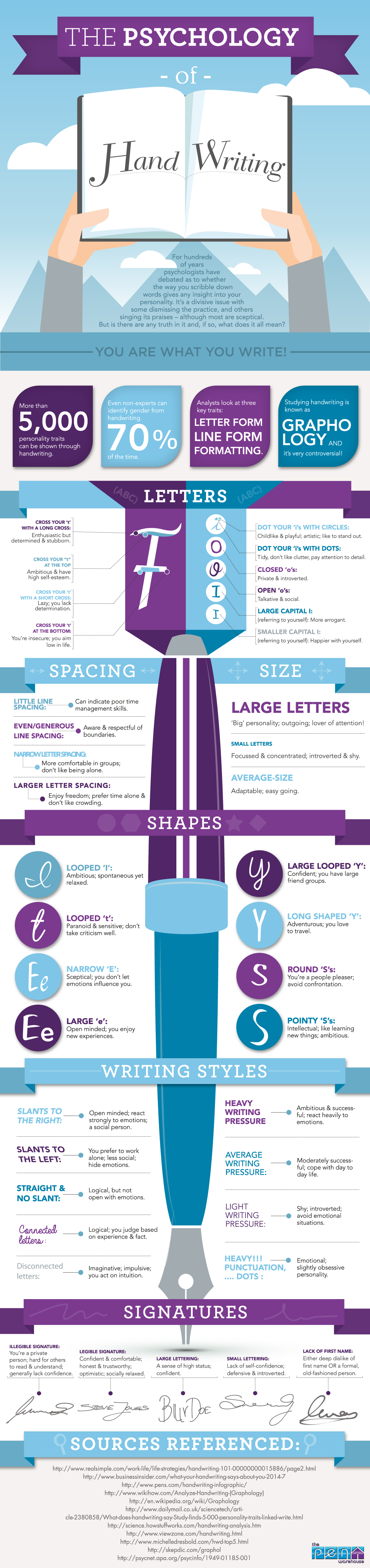
Page of a letter from my ma.
For decades I’ve ranked typing as the most useful class I took back in high school. I hated showing up for this particular summer school elective, my story goes, but by the end of the class I could type 40 words a minute. It was like magic. And now I can type 100.
Well, lately I’ve begun to regret my supreme keyboarding skills.
It took a good while to sink in. But just the other day, during my morning hike with Jack, my dog, the true ramifications hit me. Having somehow reached Retirement Age, I’d been ruminating on the written materials I’ve produced over the past 40 or 50 years, both personal and professional. And it occurred to me that—for the past 30 of those years, anyway—nearly all endure as but flimsy digital words. Many thousands of email messages, hundreds of letters in Microsoft Word, text files cram-packed with thoughts and notes and reflections. Intangible, ethereal. All stored, like thoughts, in memory.
A page from my dad’s Army diary.
Even the drafts and revisions of books I’ve authored abide only in digital form.
These things I’ve written exist on various hard drives, in cloud storage—even a few old Zip drives. Remember floppies? SyQuest disks? I’ve got a few of those squirreled away in boxes somewhere.
Projecting time forward a generation or two, I realized that the chances any of my stuff will stick around long enough to find its way into a historical museum somewhere (not that it should) are paper thin. Because none of it’s on paper. And the only way to get it there is to find a way to translate all those 1s and 0s into computer text and print it out. In any old font you want.
Boooring.
But project time backward a couple generations and, and you’ll find journals and notebooks and postcards and stationery filled with handwritten words. Whether cursive or printing, neat or sloppy, slanted this way or that—each style reflects the unique hand of its author. And none of it was put down at 100 words a minute.
Card from my grandparents to my great-grandparents.
I have handwritten letters from my mother, diaries written by my father, postcards from my grandparents. I recognize their familiar cursive styles on envelopes, on the backs of old photos—photos developed in a darkroom, I mean. There’s probably even an old handwritten recipe collection somewhere.
Yet where does my penmanship appear? On a few old love letters and poems perhaps, in a couple or three decades-old notebooks.
On that hike the other day I decided to pick up a pen more often, to write lists and notes, cards and letters, maybe even fill a notebook. My hand might not be practiced, or cursive, or neat. It might take me a while to get over the hand-cramp. But I expect it’ll mean more to the future reader than a bunch of digital words set in, say, Comic Sans.
» See? “[A]ll that will be remembered of them is what they typed on a piece of paper from a computer.”
» Turns out this gang of fourth graders are diggin’ cursive these days.
» Some might even (like me!) become experts on deciphering old penmanship.
» The uniqueness of individual handwriting makes the news again (Roy Moore).
» And, hey, with Valentine’s Day coming, maybe it’s time to write a love letter—by hand.
My cursive handwriting test.
A confession: my cursive handwriting sucks. I write by hand so rarely these days, and when I do, it tends to come out as a sort of stylized printing I forced on myself thirty or forty years ago. So I just tried writing a few short cursive sentences on an index card to see what it looks like.
Yeah, it sucks. In fact, I couldn’t even remember how to write a capital “T.”
Alas, I’m not alone. What got me testing out my cursive today was a recent news item about how Cambridge University educators are considering dropping their handwritten exam requirement—after more than 800 years. The problem being that the faculty is having trouble reading students’ handwriting.
18th-century penmanship from Kentucky County, Virginia.
“There has definitely been a downward trend,” says history lecturer Sarah Pearsall. “It is difficult for both the students and the examiners, as it is harder and harder to read these scripts.”
Bummer.
A Need for Speed
But I’ve long predicted this. Our smart digital devices are feeding our need for speed when it comes to all forms of communication. I mean, let’s face it: it takes a lot longer to write a thank-you note by hand than to tap out a text with your thumbs. Sure, taking the time to learn cursive might be good for your brain, your manual dexterity, and your memory, but first-world humans just prefer living in the fast lane these days, apparently.
The handwriting of Meriwether Lewis.
This got me wondering (not for the first time) how things might change if the grid goes down. Say a computer virus, an asteroid, a natural (or nuclear) disaster, solar flares, or Siri Personified takes us all offline in an instant. How will we communicate over long distances in such a post-apocalyptic scenario? Well, I reckon we’ll have to go back to scribbling out notes using charcoal on birch bark and handing them to a courier, who will deliver them to our remote recipient in person. And I can imagine the dismay on the face of our correspondent who can’t read a word we’ve written.
“Return to Sender. Illegible.”
Learn by Doing
Perhaps at the very least it’s worth practicing—if not your cursive—your hand-printing every now and then. Maybe by jotting down a grocery list, composing a thank-you note by hand, or authoring an actual letter, inserting it into an envelope, and dropping it in the U.S. Mail. I daresay pen makers and the U.S. Postal Service will appreciate it, as will your recipients. So long as they can read your writing.
The irony is that, during the decades of the decline of my penmanship, I’ve taught myself to decipher various styles of cursive handwriting from centuries gone by. And you can bet there’ll be someone with similar skills to help us out centuries from now:
“Siri, read me that old cursive letter.”
Miscellanea
» Cursive makes you smarter: a wonderful essay about all this stuff.
» Another articulate argument for not scrapping handwriting instruction.
» To heck with handwriting recognition: recognizing handwriting is a moving experience.
» Geneva, Ohio, honors the master penman who created Spencerian Script.
» Yes, truly exercising the brain sometimes takes a little time.
» On the 200th anniversary of Jane Austen’s death, a graphologist reveals a few secrets.
» Finally, Darick “DDS” Spears has released a new hip hop album called “Penmanship.”
Tags: bad penmanship, cursive, cursive hanwriting, digital devices, grid goes down, handwriting, handwriting in schools, handwritten letters, illegible, letter-writing, long-distance communication, need for speed, old handwriting, penmanship, poor penmanship, post-apocalyptic, practice, teaching cursive Posted in 21st Century, Communication, Cursive, Education, Graphology, Historical Figures, History, Literacy, Longhand, News, Old Letters, Penmanship, Ruminations, Specimens | 2 Comments »
Sunday, November 23rd, 2014
How they did it in the old days.
As the year winds down, and the photoperiod shortens here on the 44th parallel, I find my free days busy with autumn chores—e.g., earlier today I hauled away two pickup loads of maple branches fallen in an early wet snow—and my free evenings at my desk, by the fire, wrapping up loose ends.
The loose ends I’m wrapping up this evening: a number of handwriting-related news articles I’ve collected over the past few weeks. So rather than attempt an inspiring essay, I figured I’d simply share.
First I find a piece in the St. George and Sutherland Shire Leader, of New South Wales, Australia, about a program in which occupational therapists help HSC (Higher School Certificate—basically, high school) students learn how best to hold a pen. Seems perfect penmanship translates into better HSC test scores. One such therapist is Jackie Peile.
“[Peile] said students who completed the course had seen notable improvements in legibility, speed, readability and endurance [and] a 40 percent decrease in pain.”
Ms. Peile attributes students’ bad handwriting form on the overuse of iPads. Meantime, school officials in New South Wales are thinking of doing away with written exams altogether “as students can no longer tolerate long writing sessions after years of using a computer for school work.” Oh, dear.
While we’re in NSW, it seems the daughter of former premier Neville Wran is charged with a drug-related murder. 9NEWS reports that twenty-six-year old Heather Wran and two others stand accused of stabbing a fellow to death, but the investigation could take a while. Authorities were estimating a three-month wait on forensic reports—and handwriting analysis. Perhaps someone didn’t know how to hold a pen.
Also from Australia comes this rumination by writer Mel Campbell on the history of handwriting in schools Down Under, including the awarding of “pen licences” and something called “Victorian Essential Learning Standards (VELS).” For handwriting, VELS specify that…
…by year three students should: ‘Write using joined letters that are clearly formed and consistent in size.’ By the time they reach secondary school, they should possess ‘a personal handwriting style that is legible, fluent and automatic and supports writing for extended periods.’
Kid clamps down on pencil.
It’s worth a read. In fact, so is an opinion piece Campbell mentions—Teaching the write stuff: the forgotten art of penmanship, by retired teacher Marnee Wills, in The Age (Melbourne). Wills cites studies that show writing by hand improves brain function.
Children who have the capacity to write fluently, legibly and automatically are better equipped to generate and evaluate ideas, judge responses and organise their thoughts.
Campbell herself notes that she’s begun writing drafts in longhand. “Despite my crabbed, half-cursive handwriting,” she acknowledges, “I’ve never felt more inspired.”
Moving 10,000 miles northwest, The Herald of Edinburgh, Scotland, chimes in:
[B]eing able to write clearly is a basic skill every pupil should possess. Not only does it allow them to communicate effectively, writing a sentence by hand has also been shown to aid cognitive development and understanding. Writing in longhand may not be as common as it once was, but everyone in Scotland’s education system needs to be able to do it.
From Canada, meanwhile, comes this report of a University of Ottawa professor sitting in a detention cell, awaiting extradition to France in connection with a terrorist bombing of a Parisian synagogue, which killed four people thirty-four years ago. Hassan Diab vows that he’ll “never give up” his fight to clear his name.
What does this have to do with penmanship? Well, the key piece of evidence is a decades-old handwriting sample—“five block letter words scrawled on a check-in card for the Paris hotel where police believe the bombing suspect stayed”—that French authorities say matches Diab’s hand. But they compared the block letters, which defense counsel insists were written by Diab’s wife, with samples of his cursive script. The Supreme Court has refused to hear his appeal.
Would-be robber.
Back in the USA, we continue our crime theme by letting you know that poor penmanship doesn’t pay. Down Houston way, the Deer Park Broadcaster reports the FBI is releasing photos of a would-be robber who passed a note to a teller at J.P. Morgan Chase Bank—a note the teller couldn’t read. The man fled the bank empty-handed. No one was hurt in the incident.
Police in Lakeland, Florida, arrested two eleven-year-old middle school girls for writing bomb threats that forced evacuation of their school for two straight days.. Officers told the Orlando Sentinel that one of the girls admitted writing the second note to “keep the momentum going.” Teachers recognized the handwriting. (Kids these days.)
Hey—did you know that about 7,000 Americans die in the U.S. each year from bad handwriting? It’s true, apparently. The sloppy handwriting, of course, belongs to doctors, and Leonardo L. Leonidas’s commentary in the Philippine Daily Inquirer details several tragic case studies. While I disagree with Leonidas’s claim that “the bad penmanship of many physicians is impossible to change”—heck, if doctors can perform brain surgery, surely they can form a legible “B”—I do expect the practice of writing out prescriptions by hand to go the way of the dodo very soon.
Whereas if doctors did practice penmanship, it might make them better doctors: mounting evidence continues to suggest that handwriting is a lot better for your brain than keyboarding or tapping out texts with your thumbs. It’s also better for fine motor skills, notes this recent piece for The Week by Linda Thrasybule:
Children who have poor handwriting are also more likely to have visual-motor problems — difficulty copying shapes, letters, and numbers. In fact, one study showed a significant relationship between visual motor performance and the ability to copy letters legibly.
Better reading, better spelling, better memory, better motor skills. Don’t chuck your pens just yet.
Also, people who know how to write by hand can more quickly decipher old documents—say, in genealogical expeditions. Here’s a nice write-up on the subject by Dee Gibson-Roles from the Asheville (North Carolina) Citizen-Times.
And handwriting can tell a lot about a person. Witness the infographic on this page for The Pen Warehouse in the UK.
Or have a chat with Ken Nelson. Mr. Nelson, 91, is a handwriting analyst and numerologist who has a lot of years’ experience in such things. Plus, he’s still got all his hair—as you’ll see in this little bio by Jim Stingl for the Milwaukee Journal Sentinel.
Nelson is brims with accumulated wisdom about such things as ascenders and descenders and the crossings of Ts. In fact, he can tell a lot by whether we finish the loops below cursive letters like g, y, and z.
“So many people leave them unfinished. They’re always looking for something to be completed or fulfilled in their life,” he said. They might need some graphotherapy, which Nelson said changes your inner self by improving your handwriting flaws.
Police have consulted on cases with Nelson, who is a longtime member of the American Association of Handwriting Analysts.
“The handwriting has to come back,” he says. “It’s a flourishing expression and it is beautiful.”
Now, that’s a declaration I can get behind.